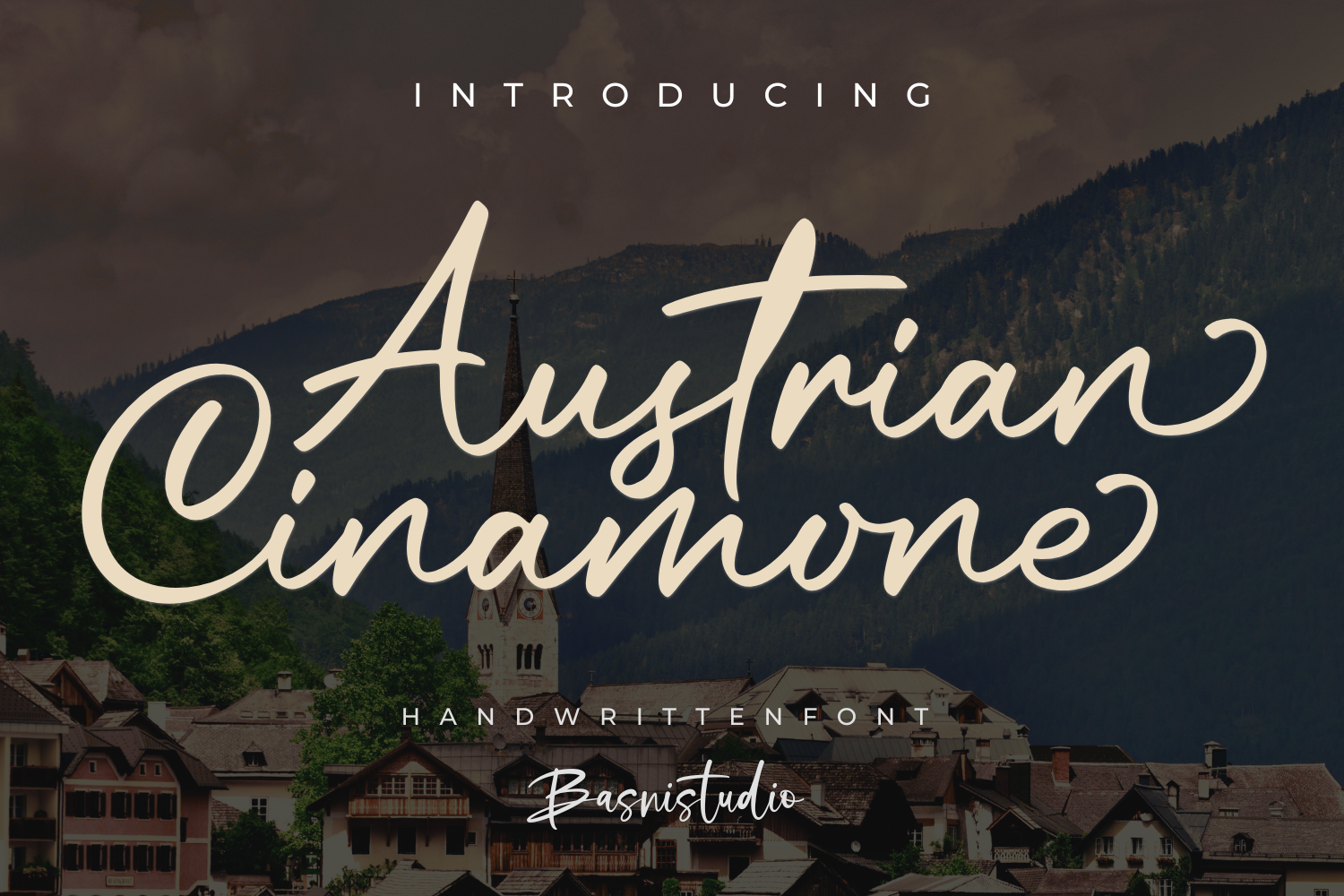
Austrian Cinamone a Handwritten Font
INTRODUCING Austrian Cinamone a Casual Handwritten Font
Austrian Cinamone is a casual handwritten font that flows effortlessly, just like a love letter written by hand.